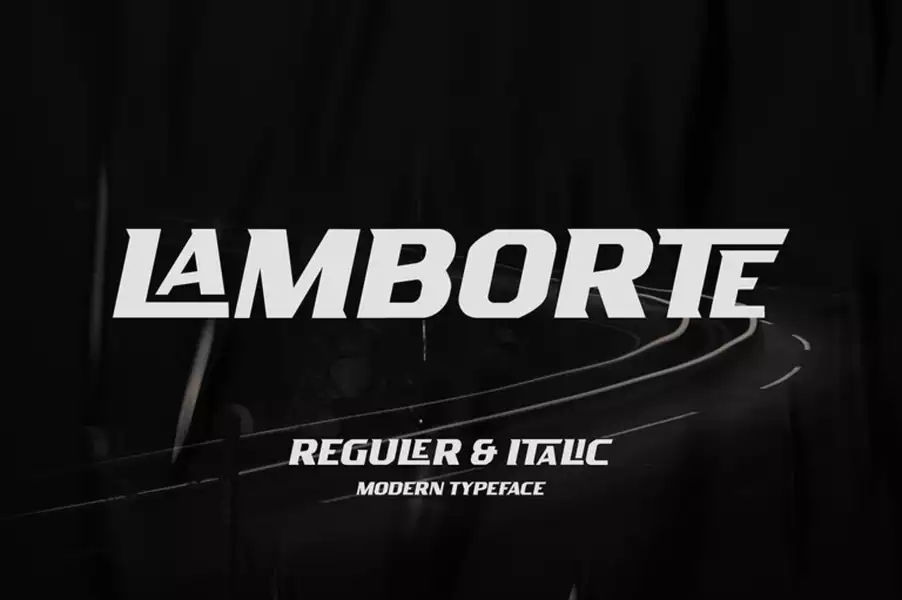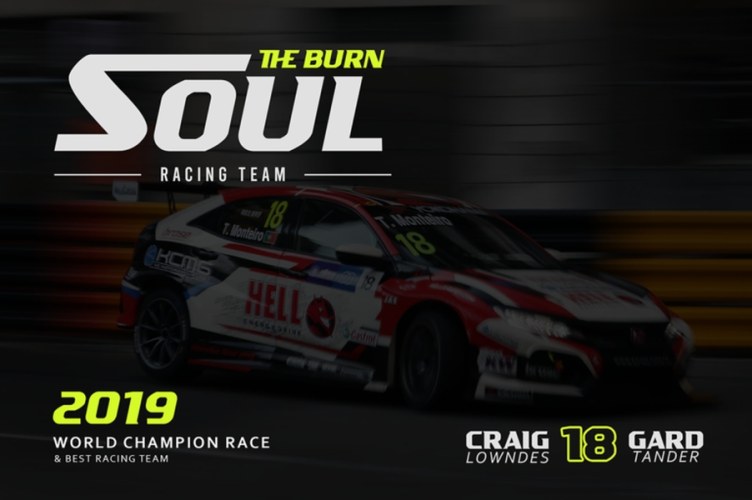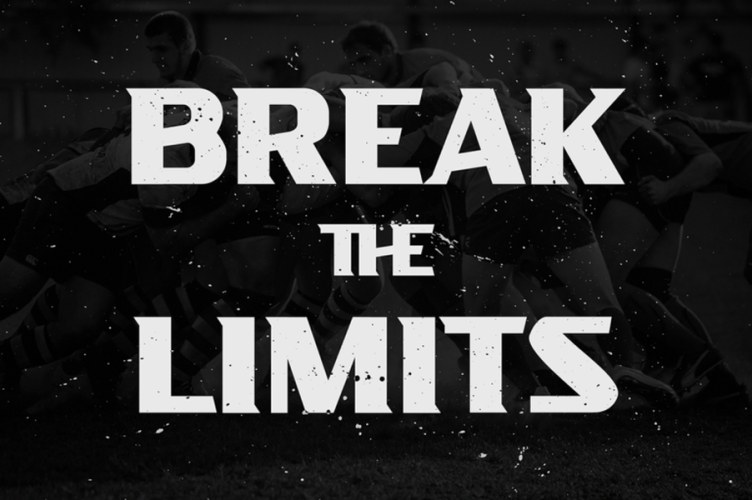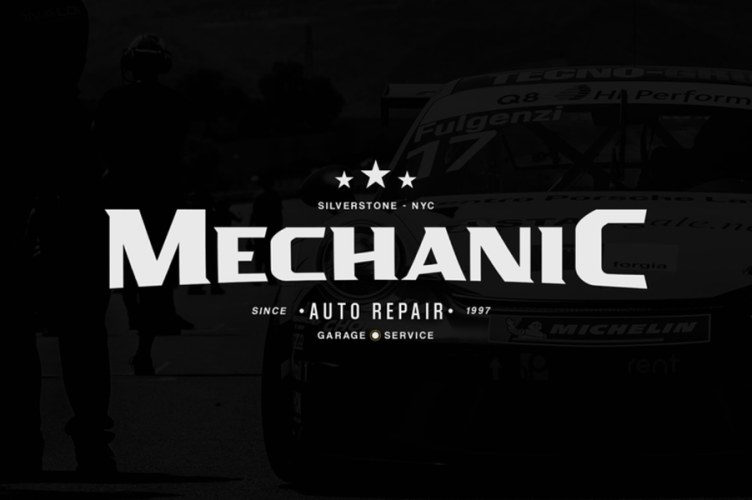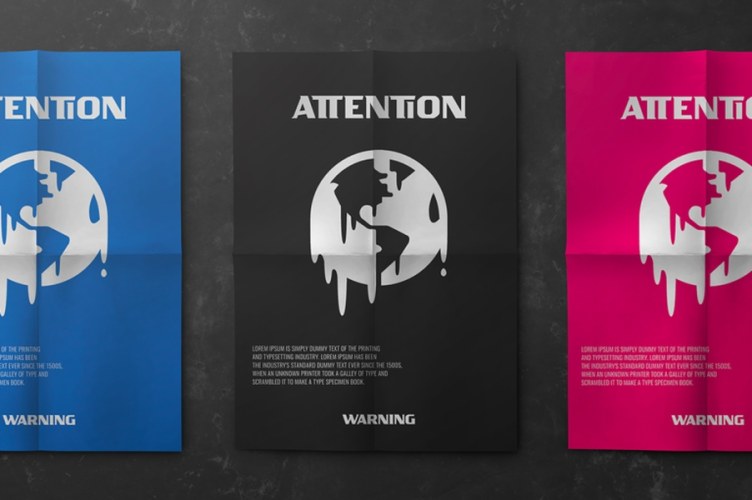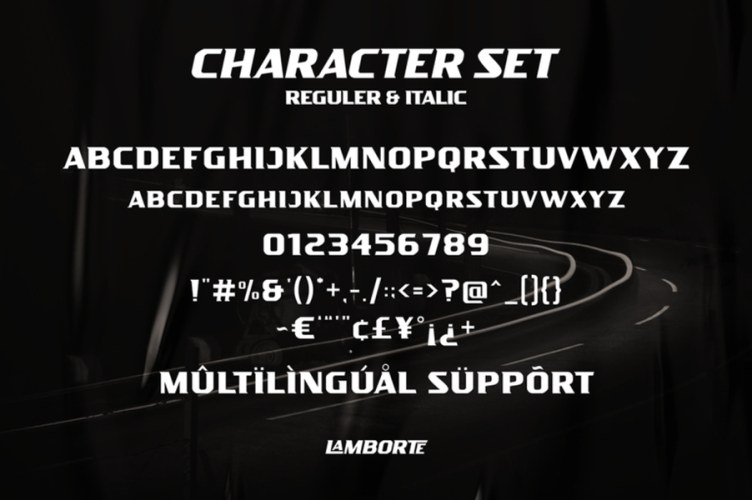
Lamborte Font
Lamborte is a strong modern sans serif style with All Caps feel nice balanced. Its wide range of uppercase with ligatures allow versatile design options and works perfec…
Lamborte is a strong modern sans serif style with All Caps feel nice balanced. Its wide range of uppercase with ligatures allow versatile design options and works perfectly for headlines, logos, posters, packaging, T-shirts and much more.
Where Lamborte Font works best
Lamborte Font is built for size: event posters, hero headlines and billboard-style layouts.
High contrast display type like Lamborte Font reads instantly in thumbnails and motion graphics.